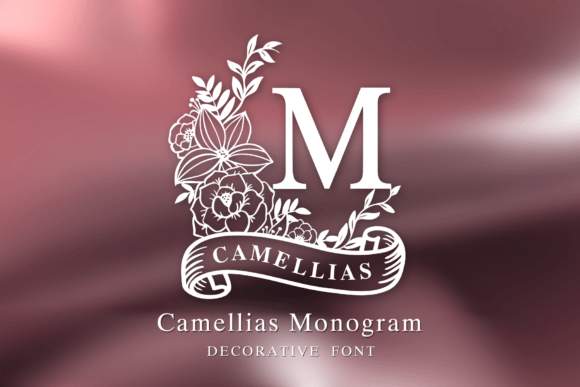
Introducing Camellias Monogram Font: Elevate Your Designs with Vintage Elegance
Are you looking for a font that exudes sophistication, elegance, and a touch of vintage charm? Look no further than Camellias Monogram Font. This beautifully ornate decorative font is adorned with floral and ribbon accents, making it perfect for creating stunning monograms, wedding invitations, branding, or logo designs. In this article, we’ll dive into the world of Camellias Monogram Font and explore its features, uses, and benefits.
What is Camellias Monogram Font?
Camellias Monogram Font is a decorative font that features intricate floral and ribbon accents, giving it a unique and elegant look. Each letter is designed to resemble a blooming garden, bringing a touch of nature-inspired sophistication to your designs. The font is perfect for those who want to add a touch of vintage charm to their work, whether it’s for a wedding invitation, logo design, or branding project.
Key Features of Camellias Monogram Font
- Ornate Design: Camellias Monogram Font features intricate floral and ribbon accents, making it a standout from other fonts.
- Vintage Charm: The font’s design is inspired by traditional Victorian-era fonts, giving it a touch of vintage elegance.
- Nature-Inspired: Each letter is designed to resemble a blooming garden, bringing a touch of nature-inspired sophistication to your designs.
- Elegant Monograms: The font is perfect for creating elegant monograms that exude sophistication and elegance.
- Versatile: Camellias Monogram Font can be used for a variety of design projects, including wedding invitations, branding, logo design, and more.
Uses of Camellias Monogram Font
Camellias Monogram Font is a versatile font that can be used for a variety of design projects. Here are some of the most popular uses of this font:
- Wedding Invitations: The font’s elegant design makes it perfect for creating stunning wedding invitations that set the tone for the big day.
- Monograms: Camellias Monogram Font is ideal for creating elegant monograms that can be used for a variety of purposes, including wedding stationery, branding, and more.
- Branding: The font’s unique design makes it perfect for branding projects that require a touch of elegance and sophistication.
- Logo Design: Camellias Monogram Font can be used to create stunning logos that exude elegance and refinement.
Benefits of Using Camellias Monogram Font
There are several benefits to using Camellias Monogram Font for your design projects. Here are some of the most significant advantages:
- Unique Design: The font’s unique design sets it apart from other fonts, making it perfect for designers who want to create distinctive and eye-catching designs.
- Elegant Look: Camellias Monogram Font’s elegant design makes it perfect for creating sophisticated and refined designs.
- Time-Saving: The font’s design is intricate and detailed, saving you time and effort in creating complex designs from scratch.
- Versatile: The font can be used for a variety of design projects, making it a valuable addition to your font library.
- Pair with Other Fonts: Camellias Monogram Font can be paired with other fonts to create a unique and eye-catching design.
Camellias Monogram Font is a beautifully ornate decorative font that is perfect for creating elegant monograms, wedding invitations, branding, or logo designs. Its unique design, vintage charm, and nature-inspired sophistication make it a valuable addition to any font library. With its versatility, ease of use, and range of benefits, Camellias Monogram Font is a must-have for designers who want to create stunning and sophisticated designs.
- What is Camellias Monogram Font? Camellias Monogram Font is a decorative font that features intricate floral and ribbon accents, making it perfect for creating elegant monograms, wedding invitations, branding, or logo designs.
- What is the style of Camellias Monogram Font? The font’s style is inspired by traditional Victorian-era fonts, giving it a touch of vintage elegance.